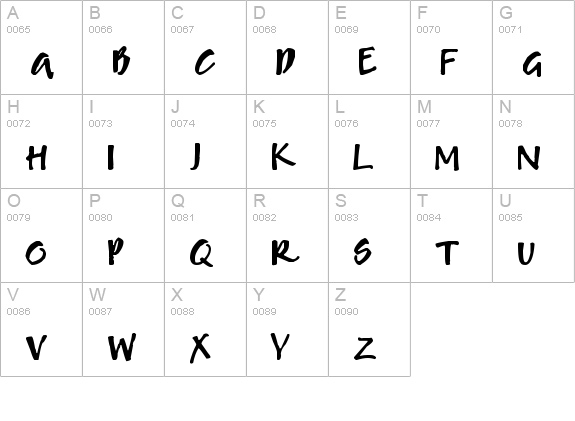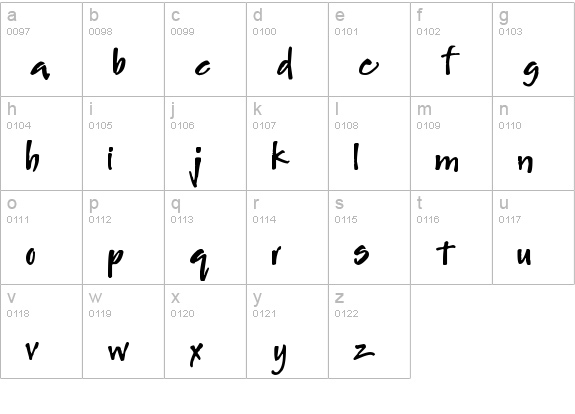
Just One More Picture Font Details
Just One More Picture font is a beautiful and versatile typeface that exudes elegance and sophistication. With its unique blend of modern and classic design elements, this font is perfect for a wide range of projects, from branding and advertising to invitations and social media graphics. Its sleek lines and stylish curves make it a standout choice for anyone looking to add a touch of sophistication to their designs. The best part? Just One More Picture font is available for free download at FontsMarket.com. That's right, you can elevate your projects with this stunning font without having to spend a dime. So why settle for ordinary when you can have extraordinary with Just One More Picture font? Download it now and take your designs to the next level!